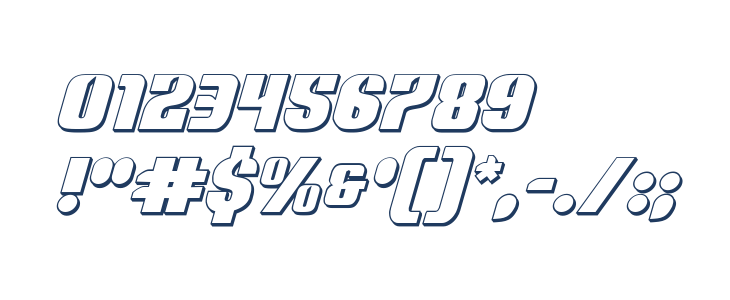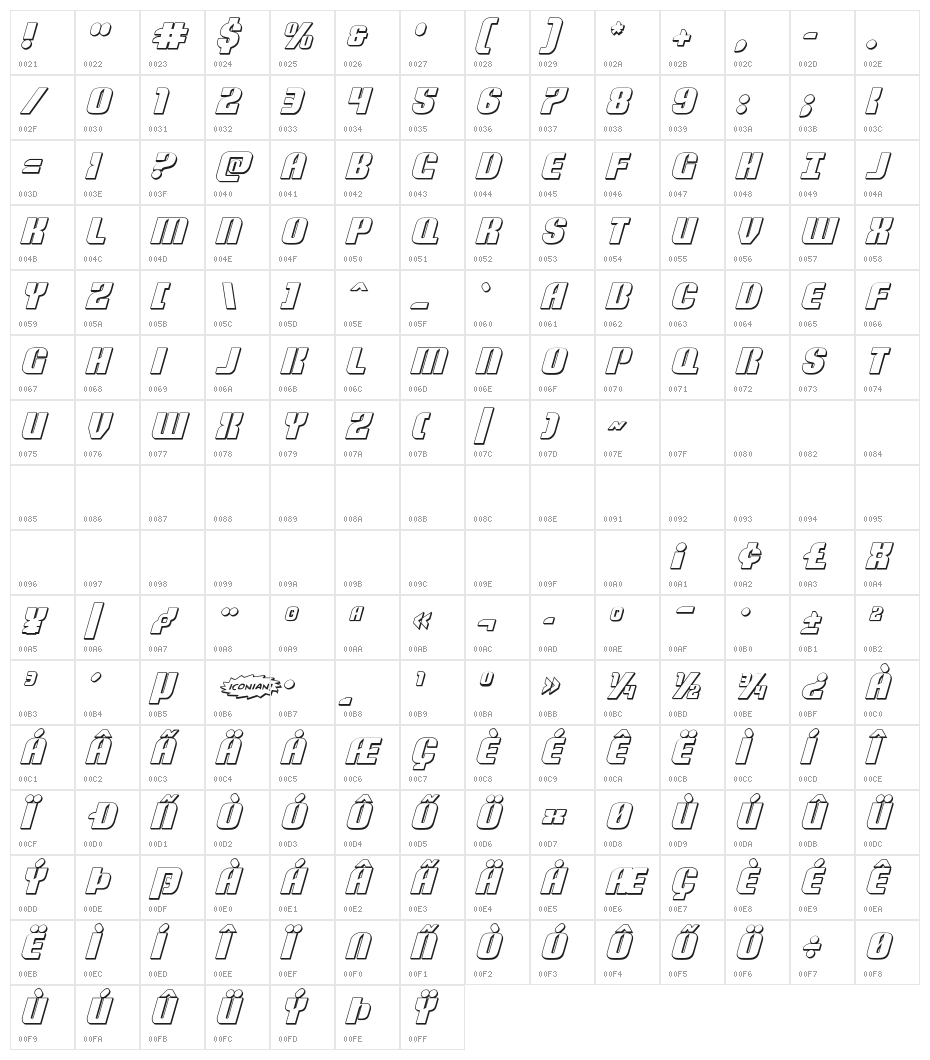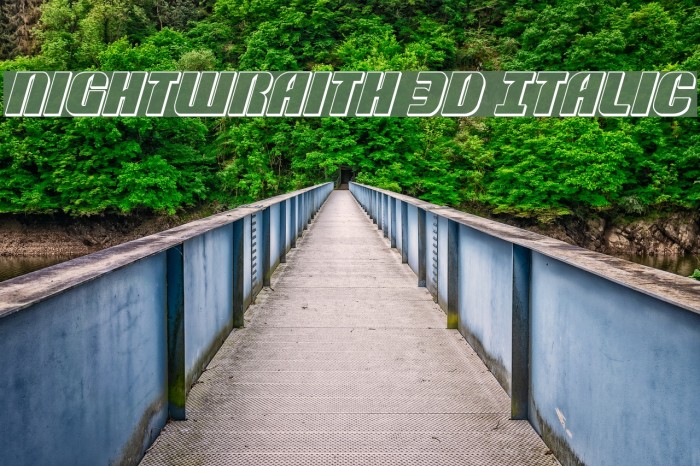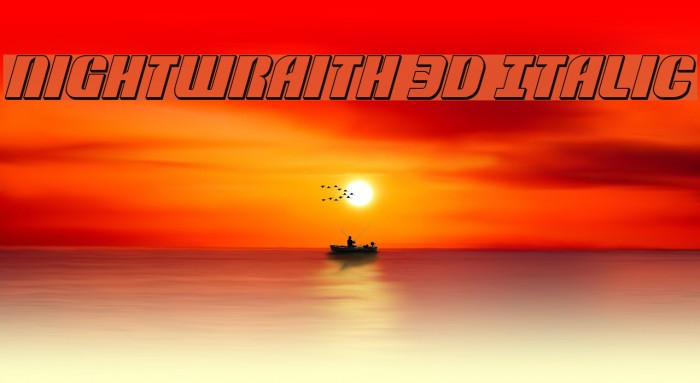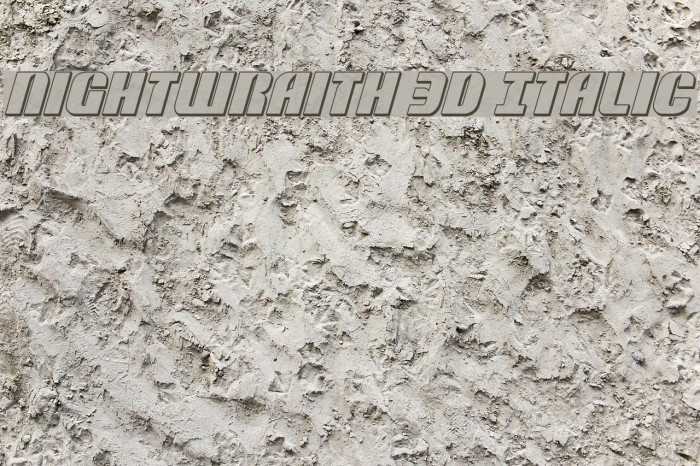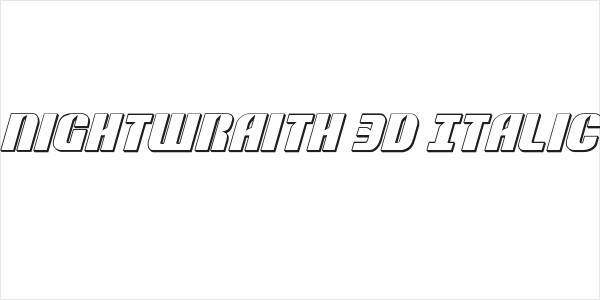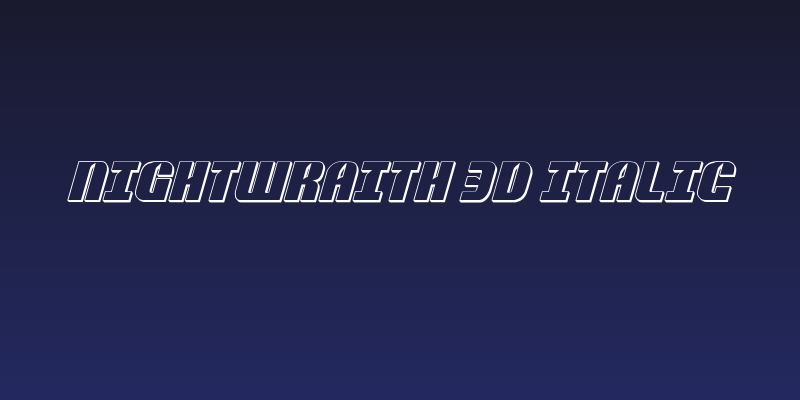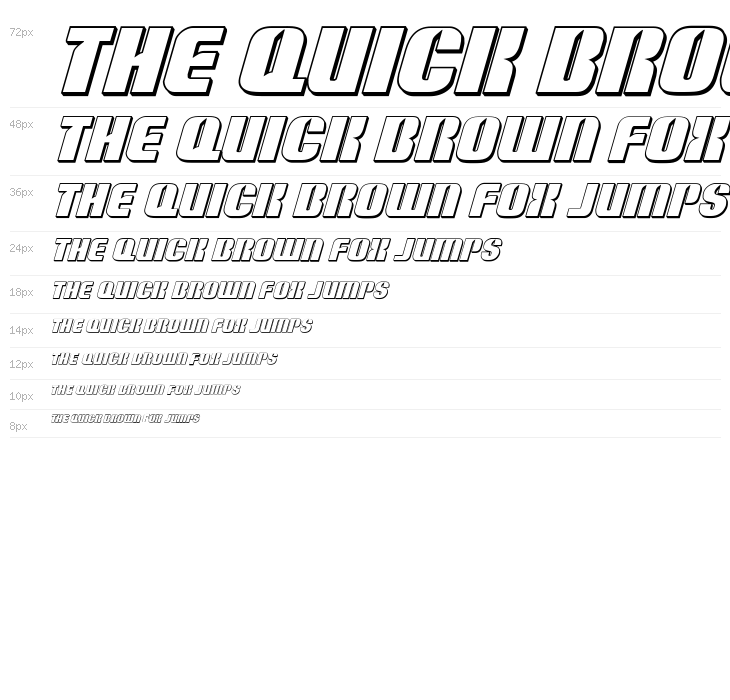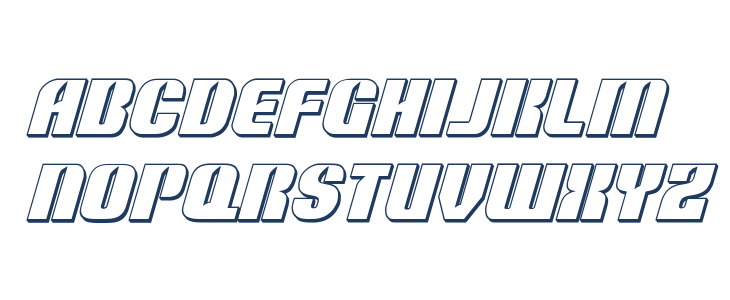
Nightwraith 3D Italic Font
Nightwraith 3D Italic Description
This font features a bold, three-dimensional appearance with italicized characters, creating a dynamic and impactful look. The letters are outlined, giving them a shadowed effect that enhances their 3D style. The uppercase and lowercase letters maintain a consistent design, with a slight slant that adds to the italicized effect. The numbers and special characters follow the same stylistic approach, ensuring uniformity across all glyphs. The font's strong presence makes it suitable for attention-grabbing designs, while the italic slant adds a sense of movement and energy.
| Proposed Projects | Ideal for posters, logos, video game titles, and any design requiring a bold, eye-catching font. |